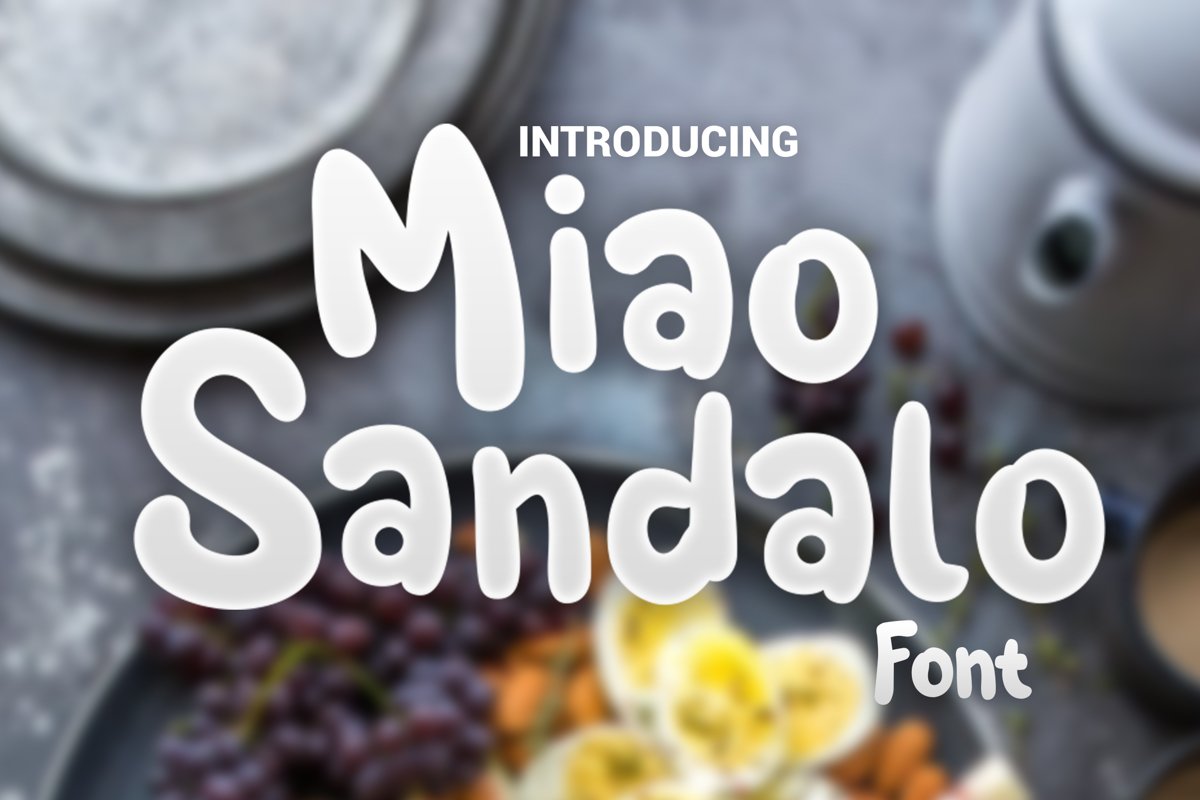
Miao Sandalo Display font
Miao Sandalo
Miao Sandalo is a beautiful Display font, perfect for adding that sweet feel to any design idea!
Suitable for Logo, greeting cards, quotes, posters, branding, name card, stationary, design title, blog header, art quote, typography
Character Set A-Z
Ligature Alternate Style
Numerals & Punctuations (OpenType Standard)